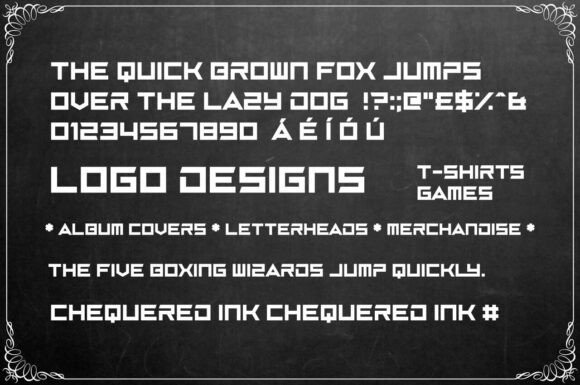
Introducing Battle Tough Font: Elevate Your Brand with a Hand-Crafted Look
Are you tired of using generic, machine-generated fonts that fail to capture the unique essence of your brand? Look no further than Battle Tough Font, a meticulously hand-crafted font designed by the talented team at Chequered Ink. With Battle Tough Font, you can give your brand that extra wow factor, whether you’re designing a logo, website, album cover, video game, or T-shirt.
The Power of Hand-Crafted Fonts
In a world where machine-generated fonts are a dime a dozen, it’s easy to get lost in a sea of sameness. But with Battle Tough Font, you can stand out from the crowd and give your product a distinctive, hand-crafted feel that’s sure to entice customers. Our designers at Chequered Ink have poured their hearts and souls into creating a font that’s not only visually stunning but also uniquely character-filled.
What Sets Battle Tough Font Apart
So, what makes Battle Tough Font so special? Here are just a few key features that set it apart from your average, run-of-the-mill font:
• Hand-crafted with love and care: Unlike machine-generated fonts, Battle Tough Font has been carefully crafted by our team of skilled designers. Every letter, every curve, and every detail has been meticulously considered to ensure a truly unique look and feel.
• Unique character and personality: Battle Tough Font has a distinct personality that’s sure to shine through in your designs. Whether you’re going for a bold and edgy look or a more subtle and sophisticated vibe, this font has the versatility to adapt to your brand’s needs.
• Perfect for a wide range of applications: From logos and websites to album covers and video games, Battle Tough Font is the perfect choice for any project that requires a touch of hand-crafted magic.
Why Choose Battle Tough Font for Your Design Needs?
With so many fonts on the market, it can be tempting to settle for something that’s easy and convenient. But if you want to give your brand a lasting impression, Battle Tough Font is the way to go. Here are just a few reasons why:
• Stand out from the crowd: With Battle Tough Font, you can say goodbye to generic, cookie-cutter designs and hello to a truly one-of-a-kind look that’s sure to turn heads.
• Add a touch of personality to your brand: This font is designed to help you inject a bit of personality into your brand, whether you’re looking to convey a sense of adventure, creativity, or playfulness.
• Elevate your brand’s credibility: By investing in a high-quality, hand-crafted font like Battle Tough Font, you can elevate your brand’s credibility and give your customers a lasting impression of quality and attention to detail.
How to Use Battle Tough Font in Your Designs
Ready to give Battle Tough Font a try? Here are a few tips for incorporating it into your designs:
• Use it as a statement piece: Battle Tough Font is perfect for use in headlines, titles, and other prominent design elements where you want to make a bold statement.
• Pair it with complementary fonts: For body text and other supporting elements, consider pairing Battle Tough Font with a complementary font that adds a touch of contrast and visual interest.
• Experiment with different colors and textures: Don’t be afraid to get creative with color and texture when using Battle Tough Font. This font looks great in a wide range of colors and can be paired with everything from bold graphics to subtle textures.
Font Name Battle Tough Font
Author Chequered Ink
If you’re looking for a font that will give your brand a unique, hand-crafted look, look no further than Battle Tough Font. With its meticulously crafted design, unique character, and versatility, this font is the perfect choice for designers and crafters who want to elevate their brand and make a lasting impression. So why settle for a generic, machine-generated font when you can have a truly one-of-a-kind design that reflects your brand’s personality and style?